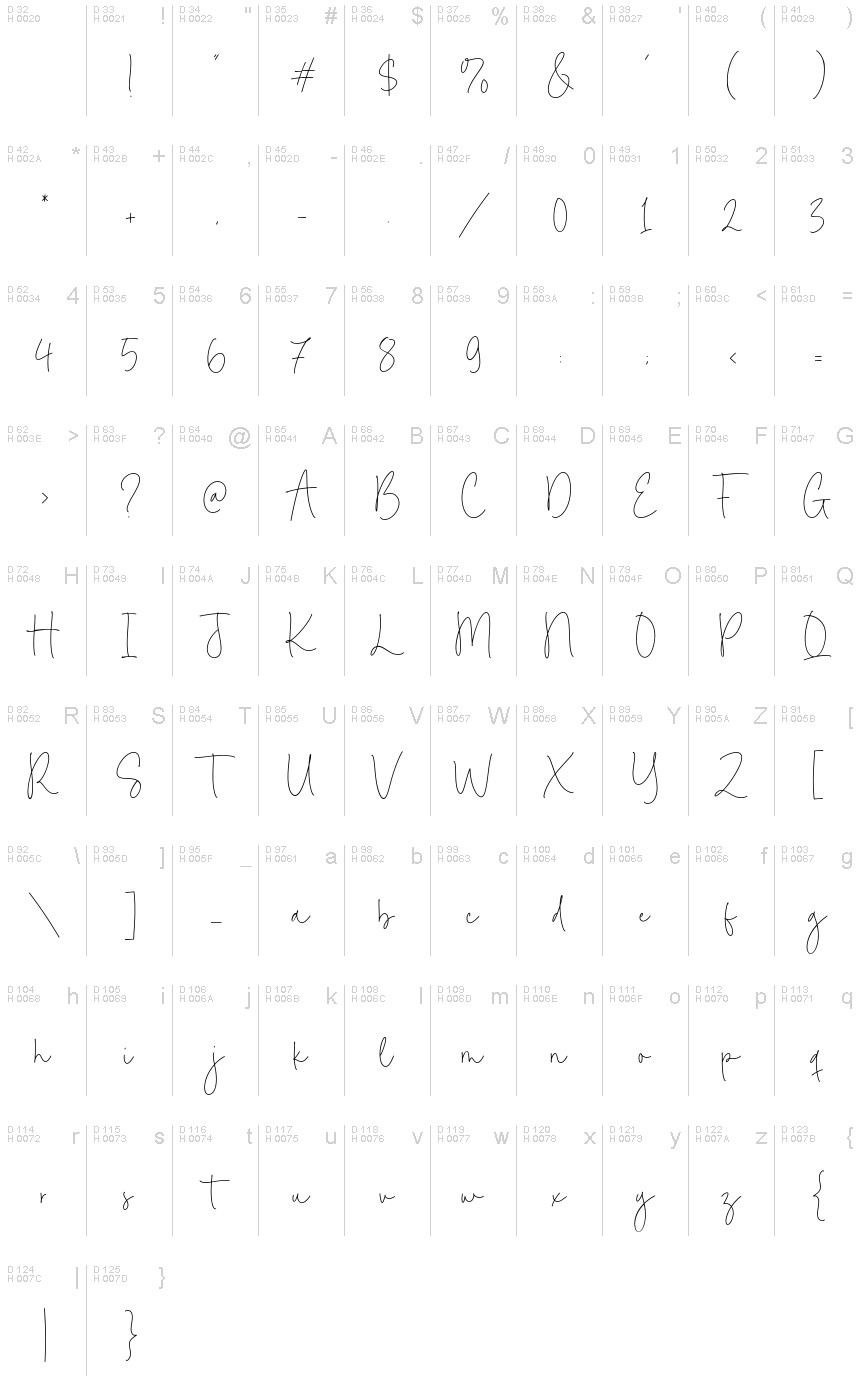
Brittaney Memories
Brittaney Memories font is a handwritten signature light typeface designed by Timur Type with elegance and informality in mind. This font presents smooth strokes that flow naturally to give your projects a personal touch, making it the ideal tool for designers. Give each of your letters an authentic look and enjoy the stylish addition Brittaney Memories has to offer.
Its playful tone can be used to upgrade minute details like posts on social media or artwork typography.